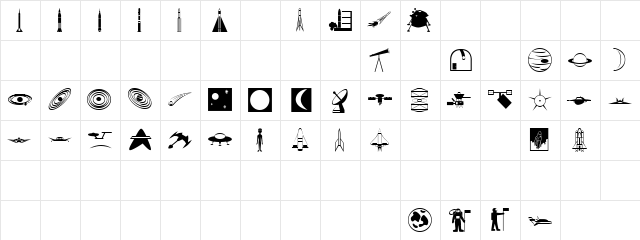
Carr Space Regular
Carr Space Regular Font Details
Design Context for Carr Space Typeface
Carr Space is a composed and adaptable typeface that performs quietly and consistently across a wide range of design contexts.